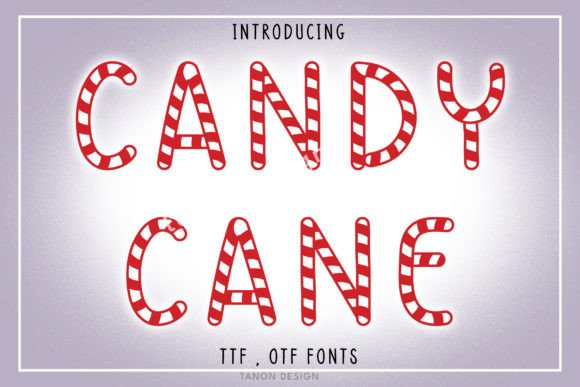
Candy Cane Font: The Sweetest Addition to Your Christmas Designs
Are you looking for a font that will add a touch of festive fun to your Christmas designs? Look no further than the Candy Cane font! This playful and eye-catching display font is perfect for creating a wide range of holiday-themed projects, from t-shirt designs and mug designs to digital designs, crafts, cards, and more.
What Makes Candy Cane Font So Special?
The Candy Cane font is a fun and festive display font that is sure to bring a smile to everyone’s face. Its unique and playful design makes it perfect for adding a touch of holiday cheer to any project. Whether you’re creating designs for personal use or for commercial purposes, this font is sure to be a hit.
One of the best things about the Candy Cane font is its versatility. It can be used for a wide range of projects, including:
- T-shirt designs: Add a festive touch to your holiday t-shirt designs with the Candy Cane font.
- Mug designs: Create fun and festive mug designs that are perfect for hot chocolate or coffee.
- Digital designs: Use the Candy Cane font to create festive digital designs, such as social media graphics or holiday-themed wallpapers.
- Crafts: Add a personal touch to your holiday crafts, such as cards, gift tags, or decorations.
- Cards: Create festive holiday cards that are sure to impress.
Key Features of the Candy Cane Font
The Candy Cane font has a number of key features that make it perfect for your holiday designs. Some of these features include:
- Playful and festive design: The Candy Cane font has a unique and playful design that is sure to add a touch of holiday cheer to any project.
- Easy to read: Despite its playful design, the Candy Cane font is easy to read, making it perfect for use in a wide range of projects.
- Versatile: The Candy Cane font can be used for a wide range of projects, from t-shirt designs to digital designs.
- High-quality: The Candy Cane font is a high-quality font that is sure to look great in any project.
Tips for Using the Candy Cane Font
Here are a few tips for using the Candy Cane font in your holiday designs:
- Use it sparingly: While the Candy Cane font is festive and fun, it can be overwhelming if used too much. Use it sparingly to add a touch of holiday cheer to your designs.
- Pair it with other fonts: The Candy Cane font pairs well with a wide range of other fonts. Try pairing it with a bold font for a fun and playful look.
- Experiment with colors: The Candy Cane font looks great in a wide range of colors, from traditional holiday colors like red and green to more modern colors like pink and blue.
Where to Use the Candy Cane Font
The Candy Cane font can be used in a wide range of projects, both online and offline. Here are a few ideas for where to use the Candy Cane font:
- Social media graphics: Use the Candy Cane font to create festive social media graphics, such as holiday-themed Facebook posts or Instagram stories.
- Holiday cards: Create festive holiday cards that are sure to impress with the Candy Cane font.
- T-shirts and mugs: Add a festive touch to your holiday t-shirt and mug designs with the Candy Cane font.
- Digital designs: Use the Candy Cane font to create festive digital designs, such as holiday-themed wallpapers or phone cases.
The Candy Cane font is a fun and festive display font that is perfect for adding a touch of holiday cheer to any project. Its playful and eye-catching design makes it perfect for use in a wide range of holiday-themed projects, from t-shirt designs to digital designs. With its versatility, ease of use, and high-quality design, the Candy Cane font is sure to be a hit with designers and crafters alike.